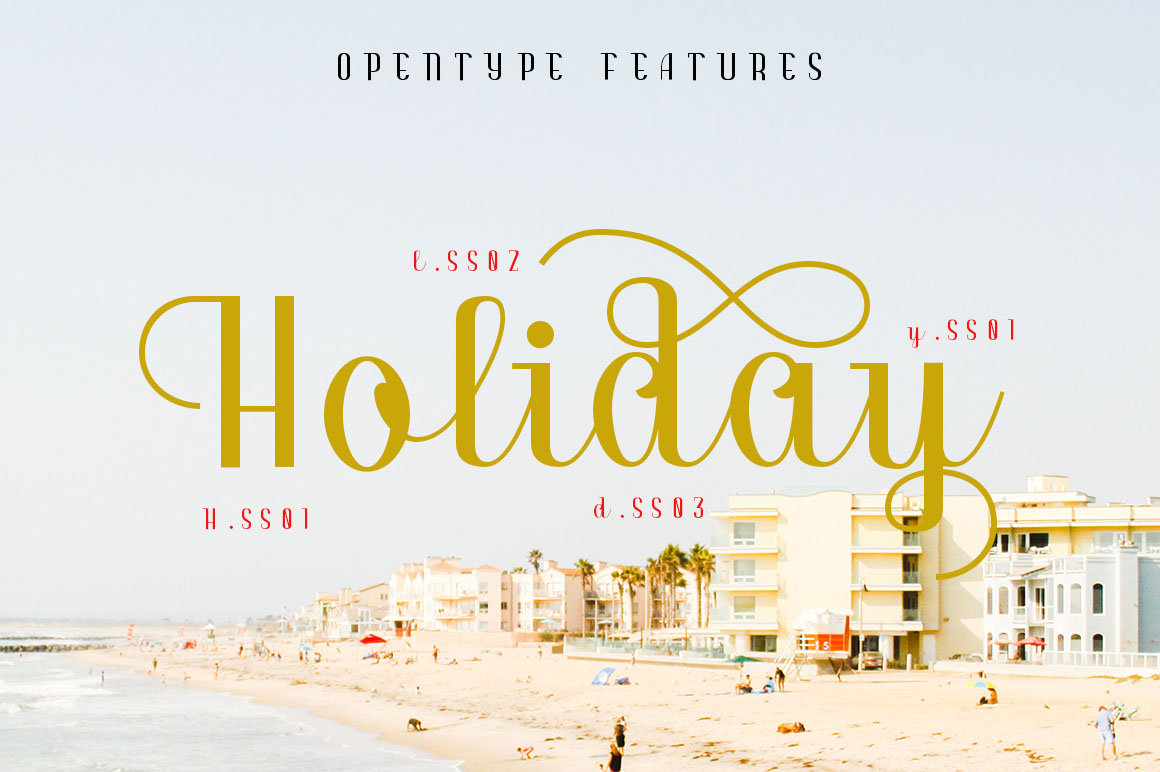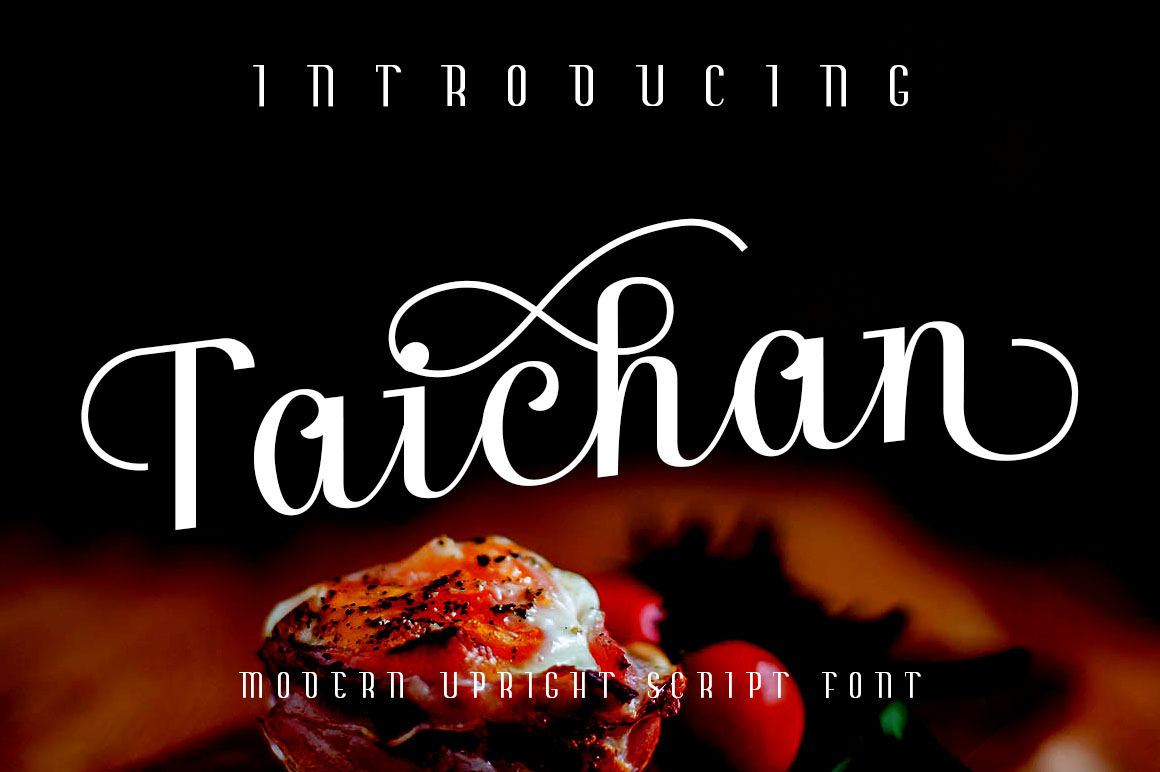
Taichan Script Font
Taichan Script is a Modern Upright Script Font with Open Type Features. Enjoy this wonderful exclusive font for free only at Font Bundles.
| Classification: | Calligraphy Fonts, Script Fonts |